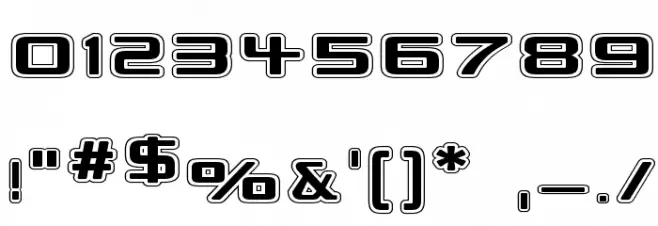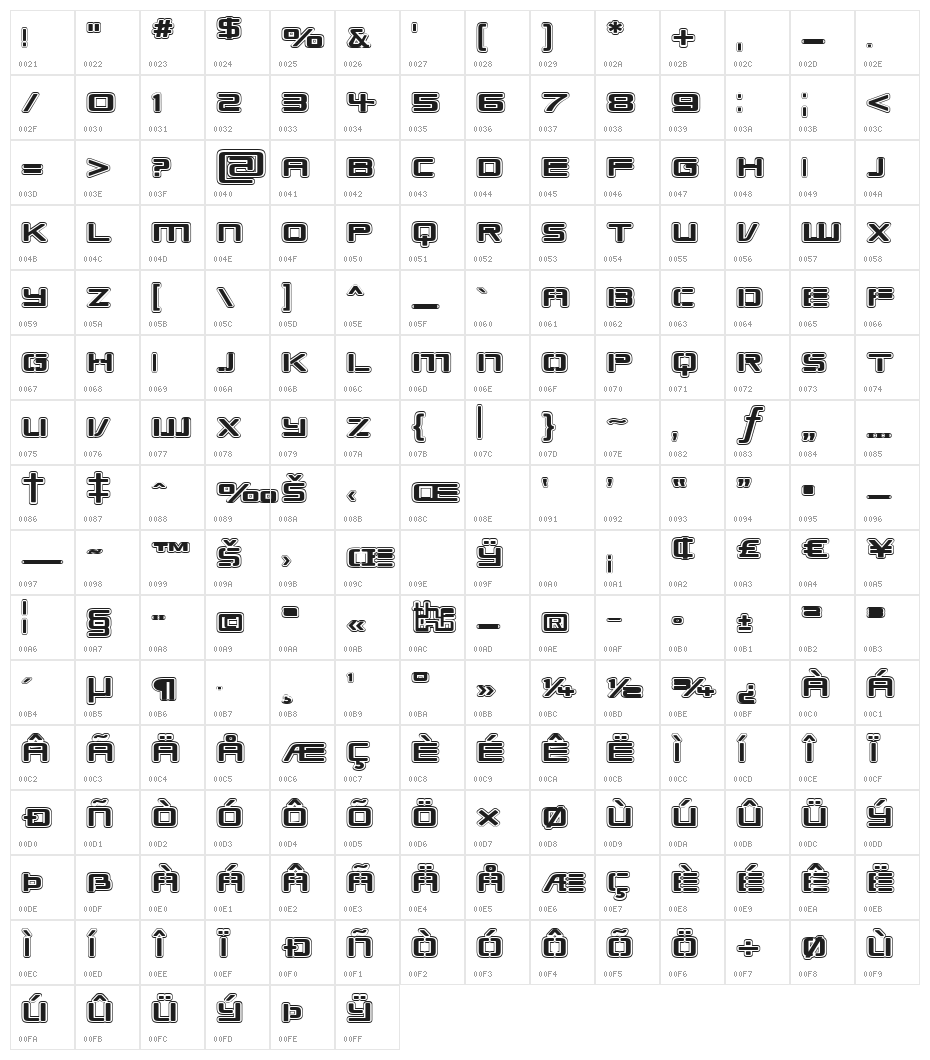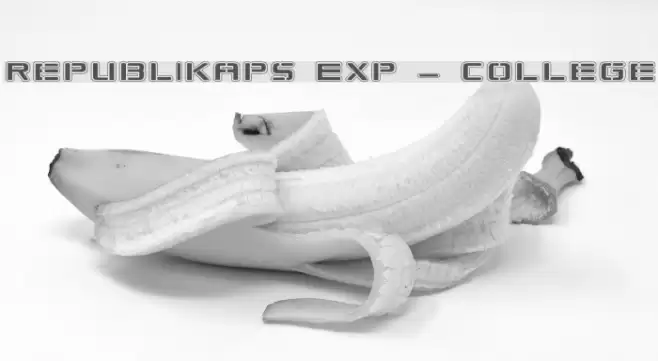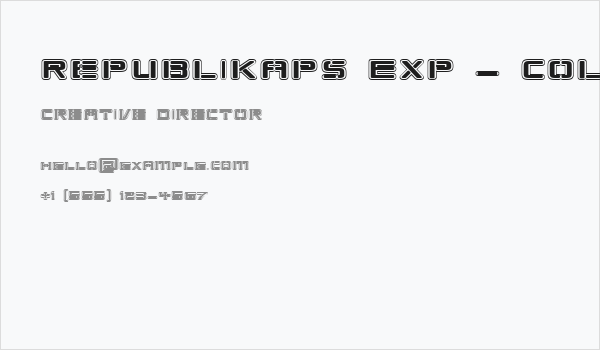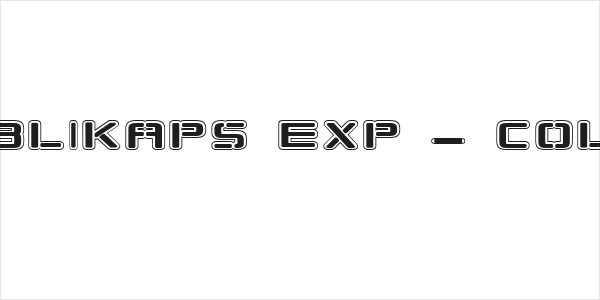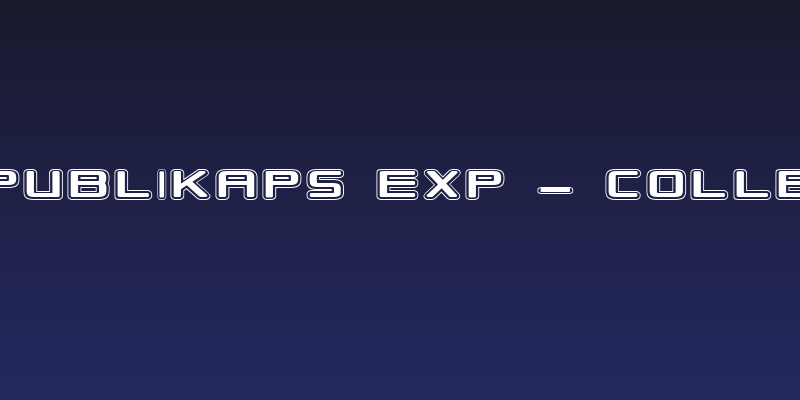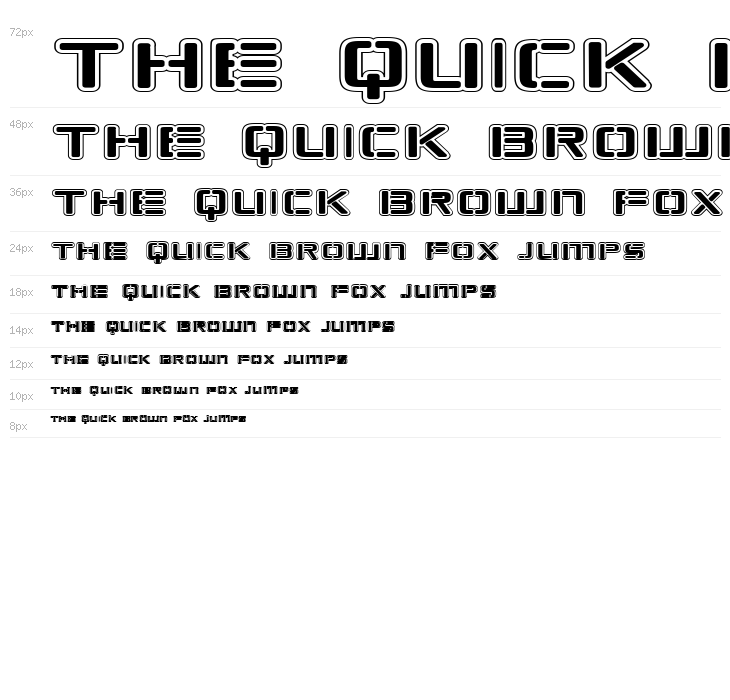
Republikaps Exp - College Font
Republikaps Exp - College Description
This font features a bold, outlined style with a modern and sporty aesthetic. The characters are uppercase and lowercase with a consistent geometric structure, giving a sense of uniformity and balance. The numbers and special characters follow the same design, maintaining the overall theme. The font's distinct outline makes it stand out, suitable for creating impactful and eye-catching designs. Its clean lines and structured form make it versatile for various applications, from sports branding to modern digital interfaces.
| Proposed Projects | Ideal for sports branding, digital interfaces, posters, and merchandise design. |